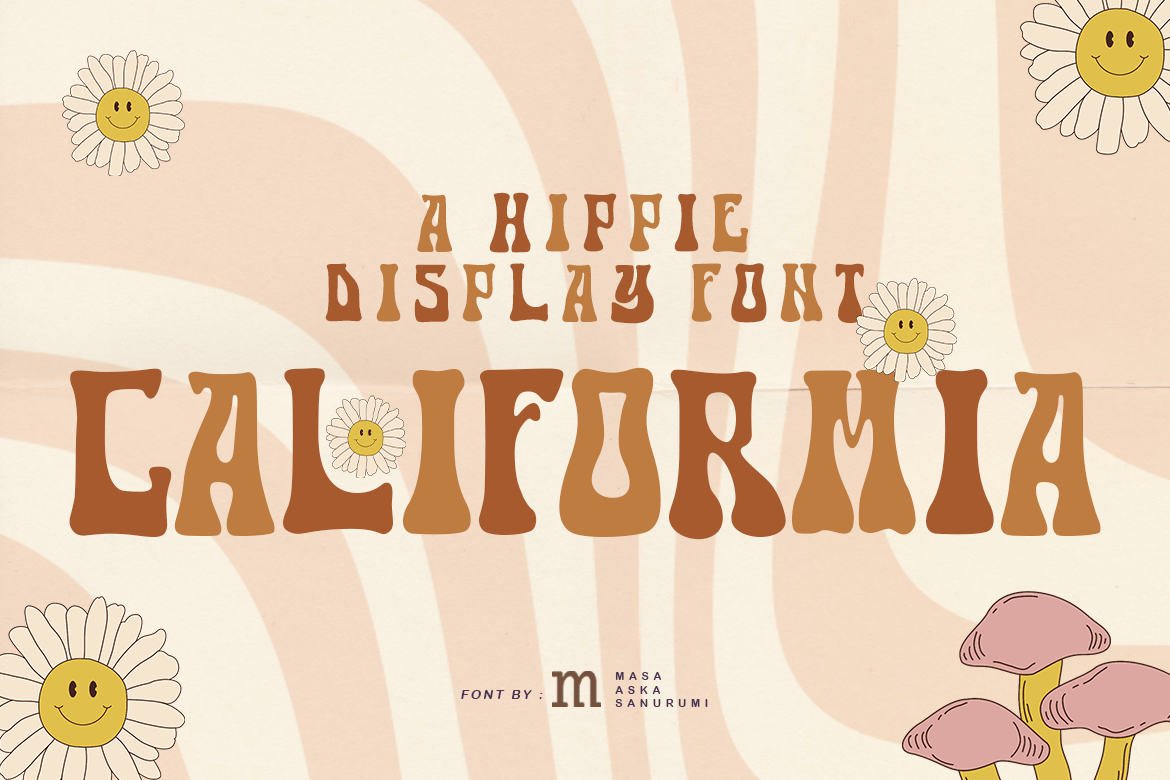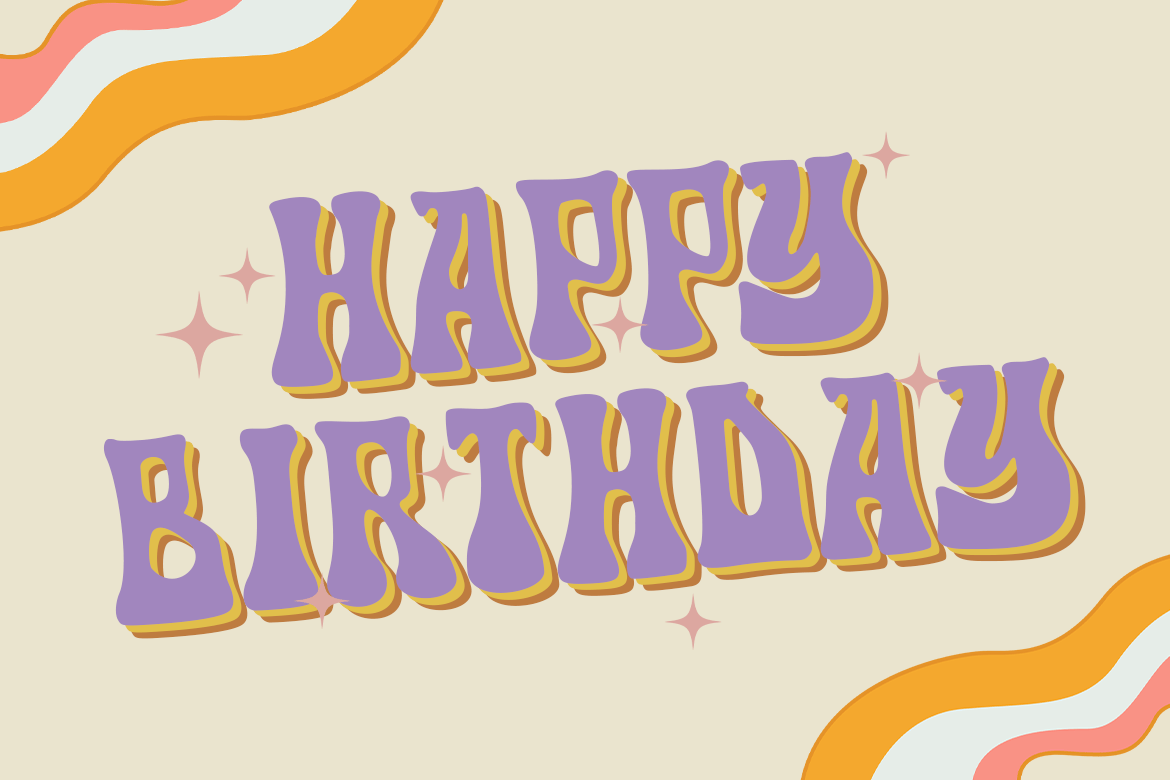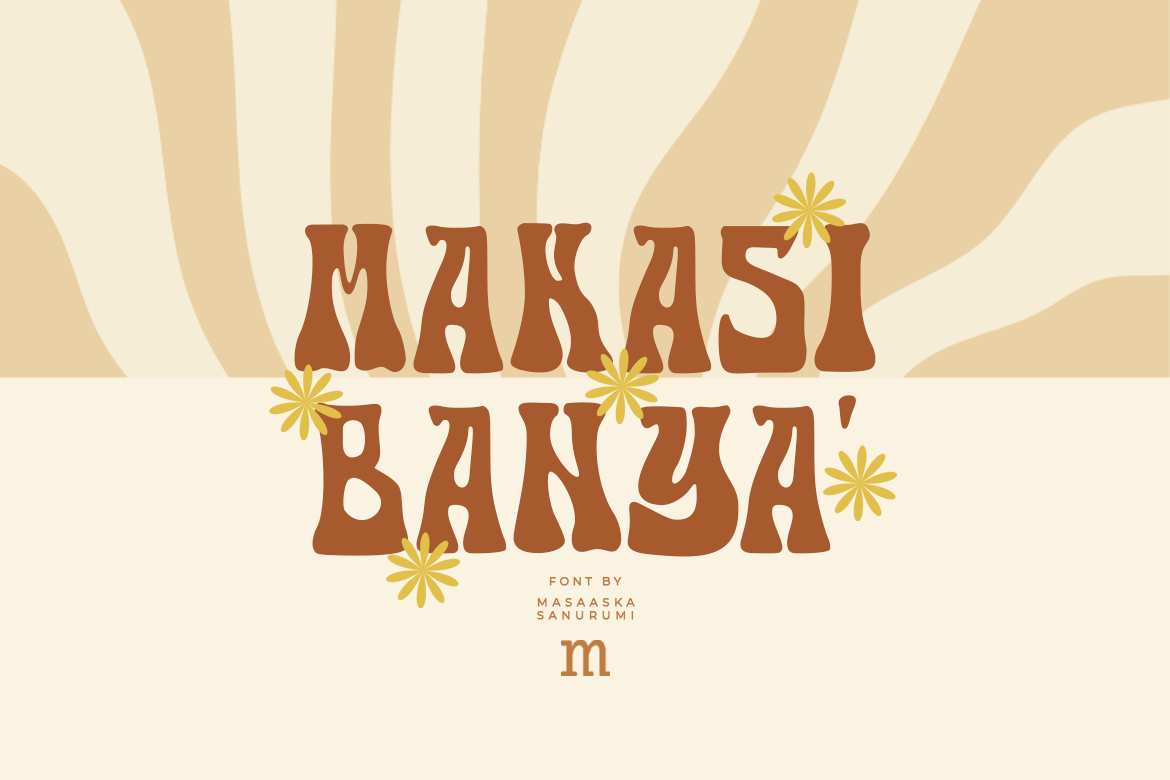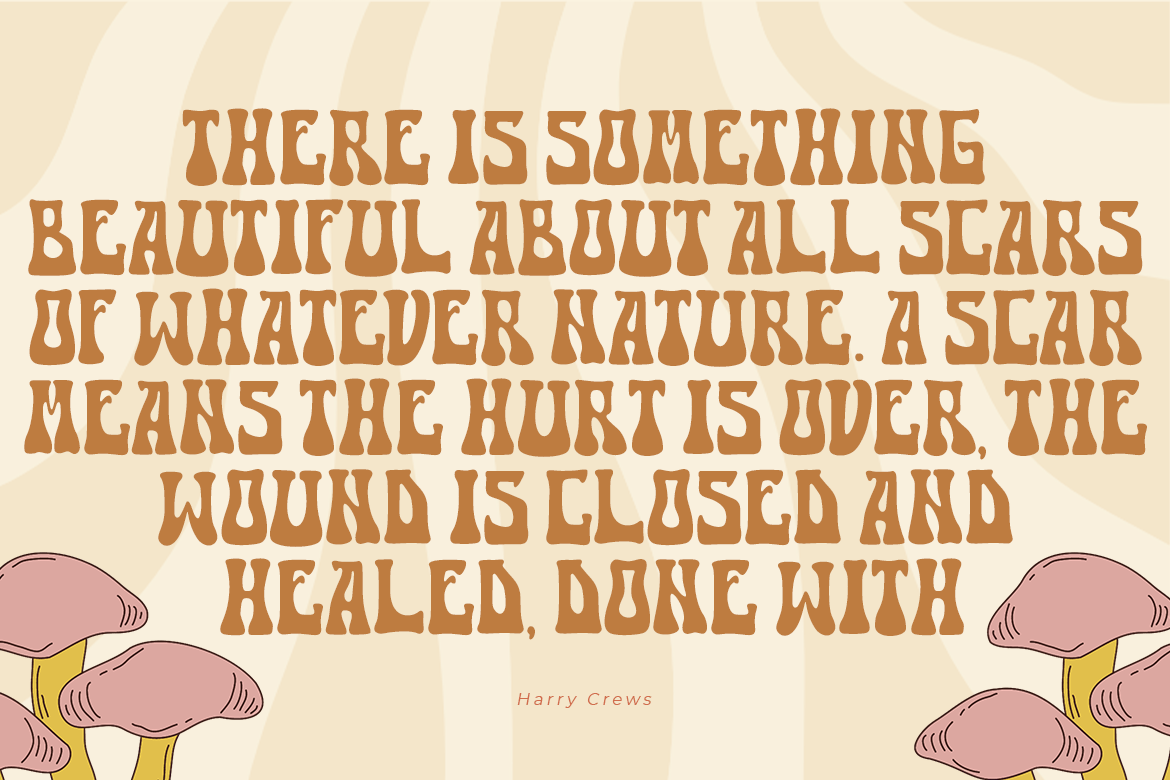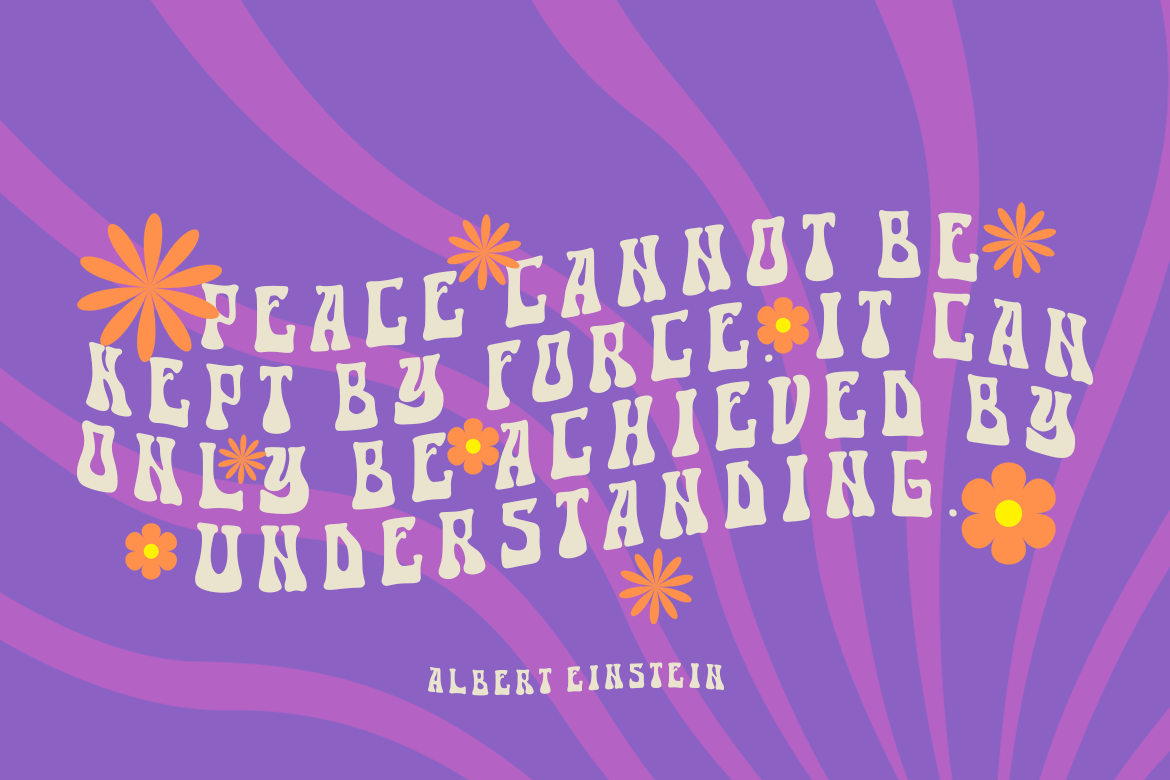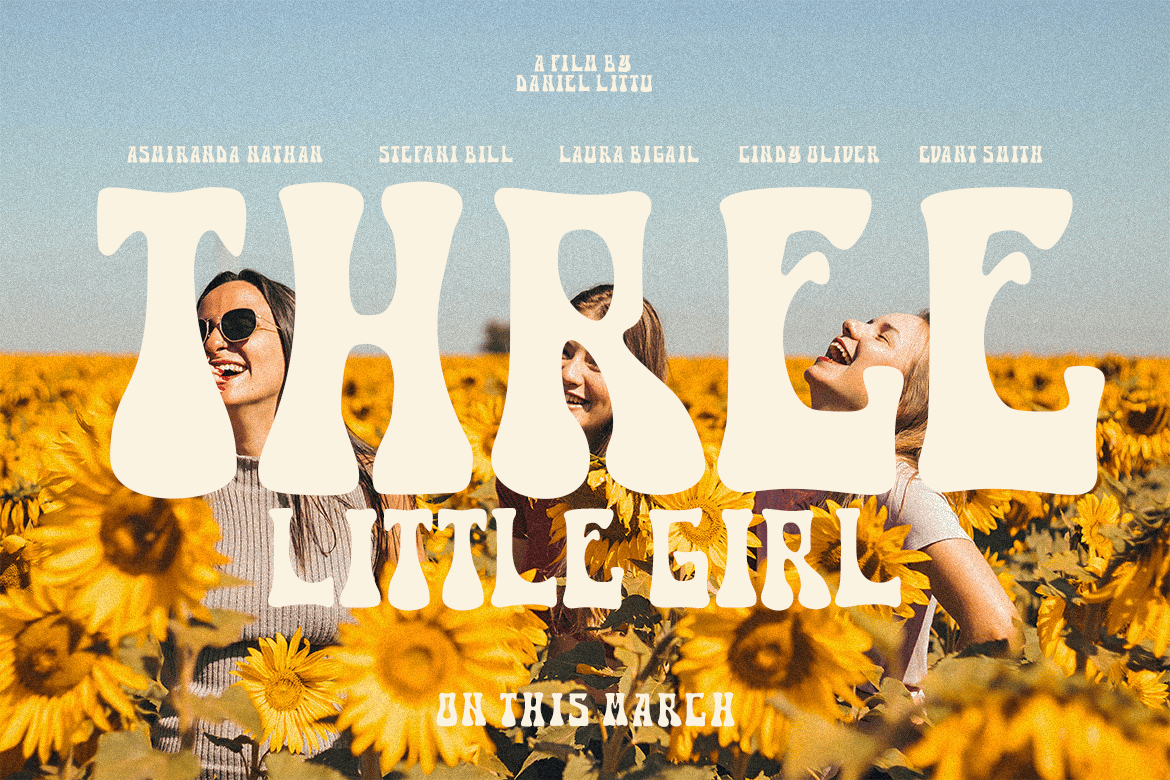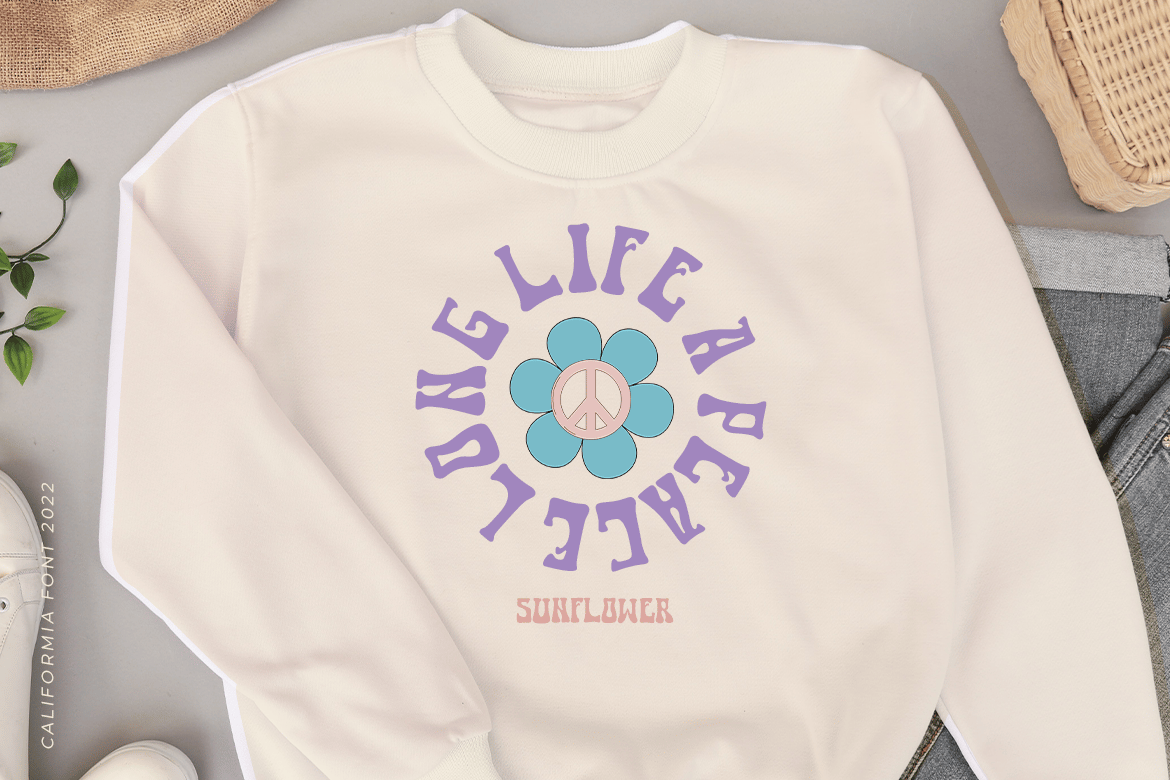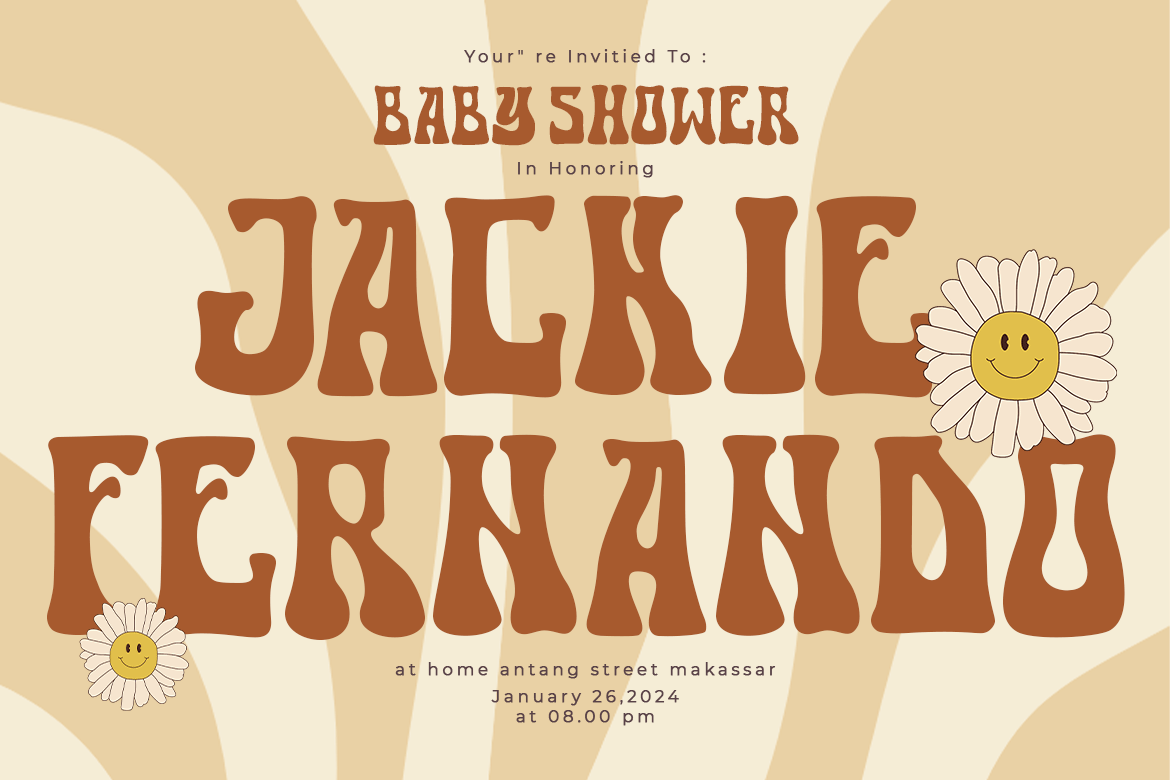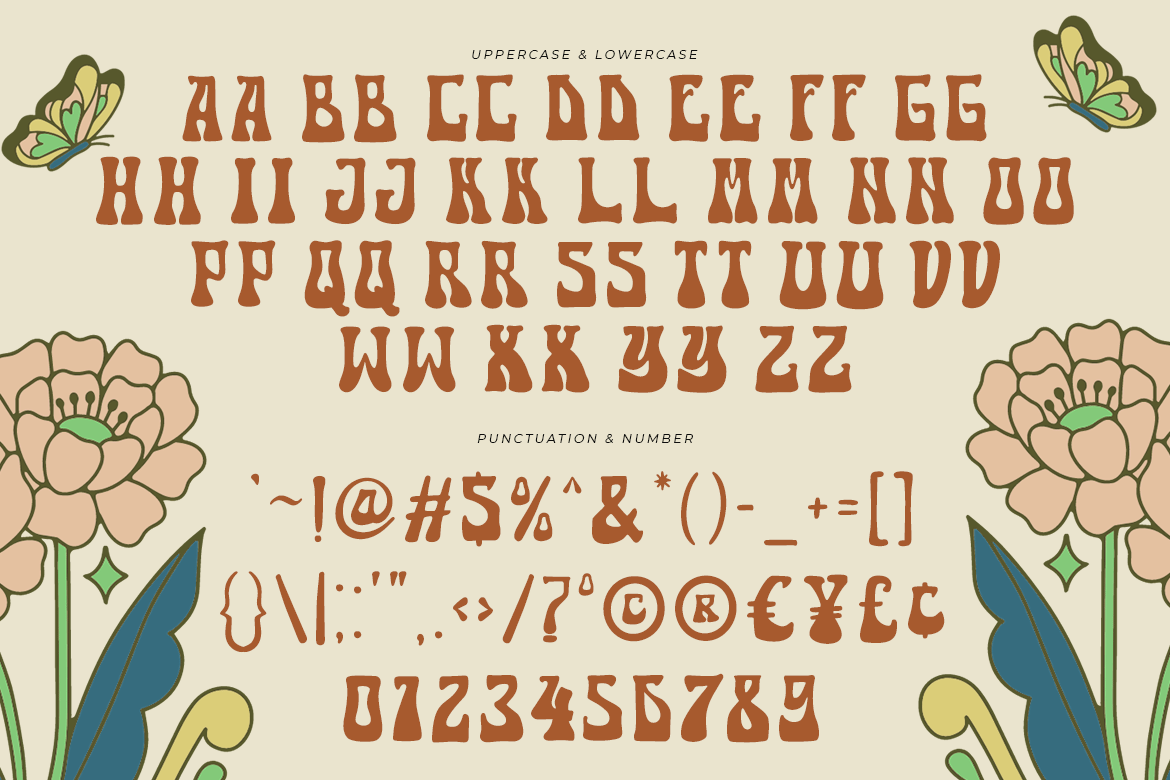
Califormia | A Hippie Display Font
Introducing, Califormia is a hippie display font suitable for your design project needs, such as; birthday theme, social media posts, quotes, overlays on images, posters, print needs, website banners, and more.
- A set of uppercase and lowercase glyphs
- Number, symbol, and punctuation